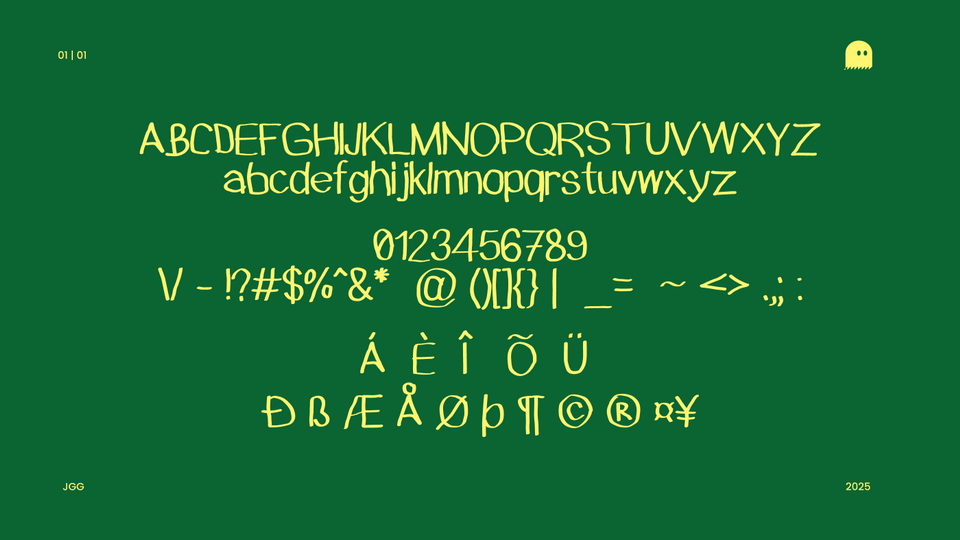
Doodle is a spontaneous handwriting font that conveys lightness and creativity. With loose, irregular strokes, it captures the essence of hand-drawn doodles, making it perfect for casual projects, illustrations, and designs that seek an authentic and playful touch.